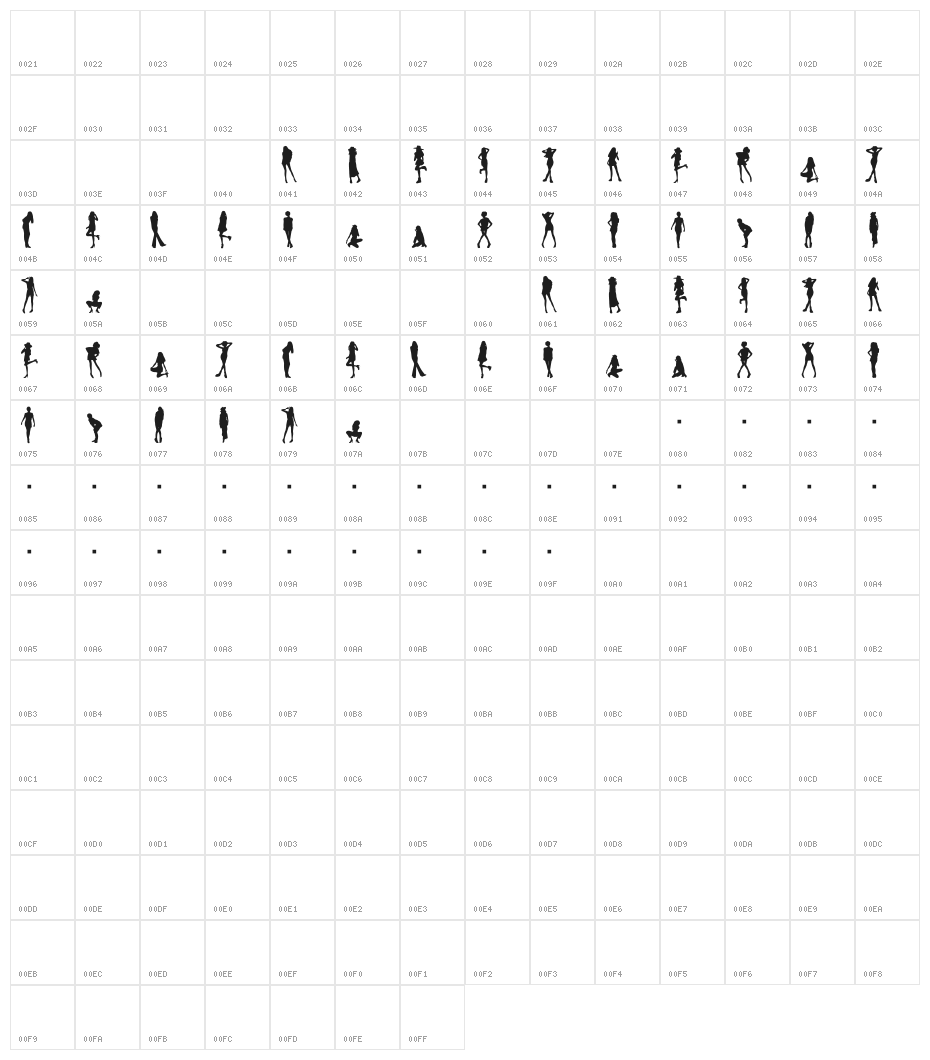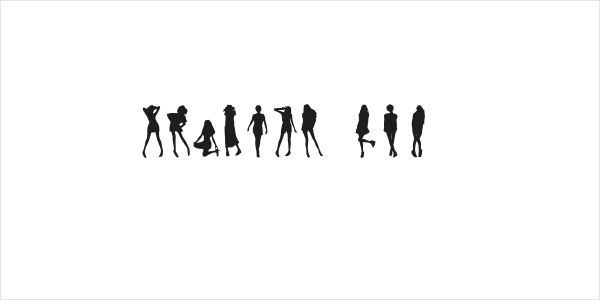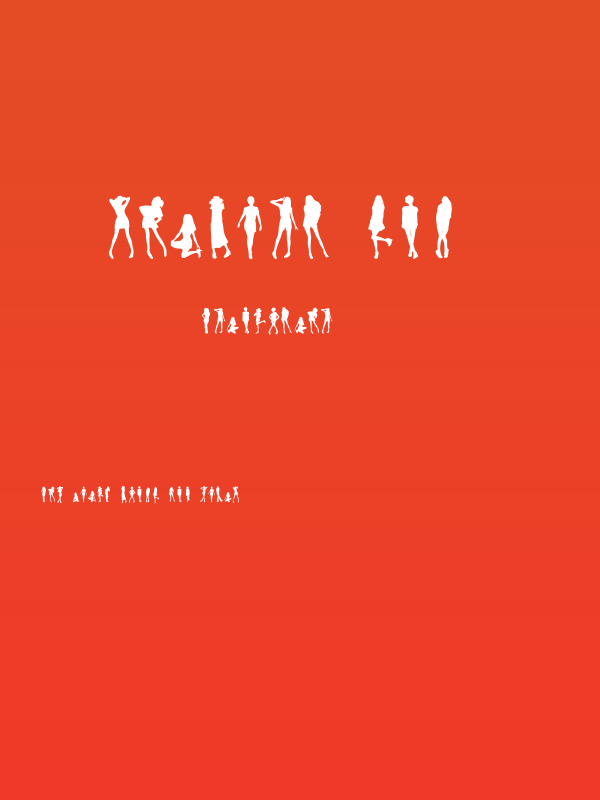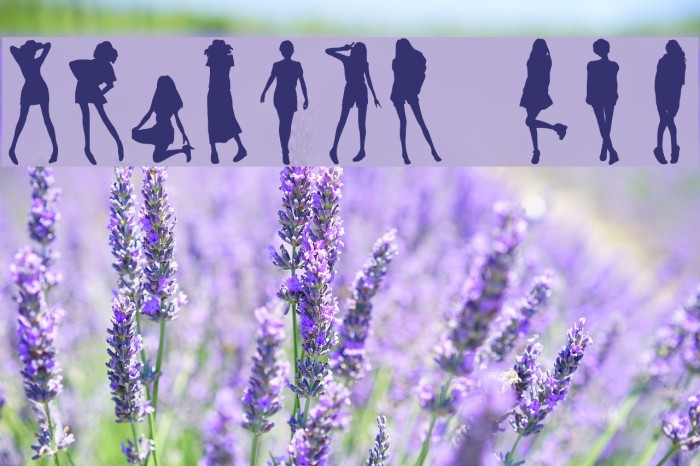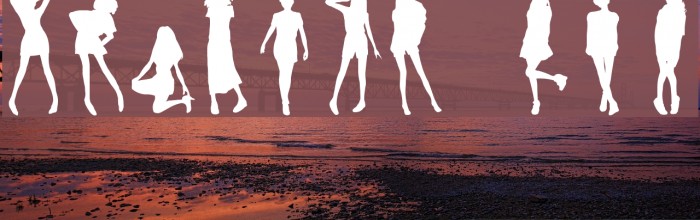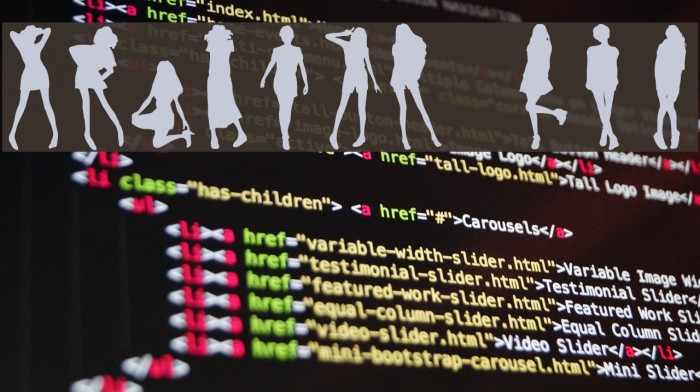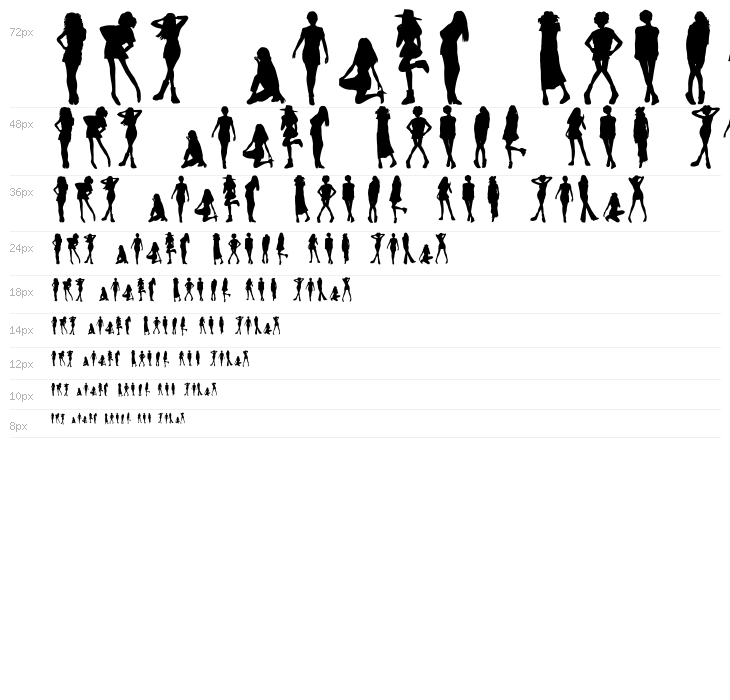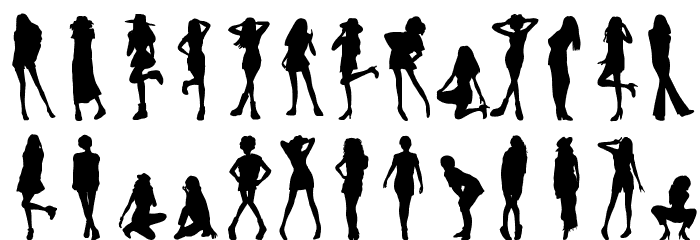
Shibuya Now! Font
Shibuya Now! Description
A decorative font composed of black silhouettes of fashion models in various poses, each character represented by a unique figure. The style is playful and expressive, focusing on human forms rather than traditional letter shapes.
| Overall Style | Decorative, Modern, Playful |
| Use Case | Logos, Headlines, Posters, Artistic projects |
| Proposed Projects | Fashion branding, event posters, editorial headlines, creative advertisements, youth-oriented designs. |